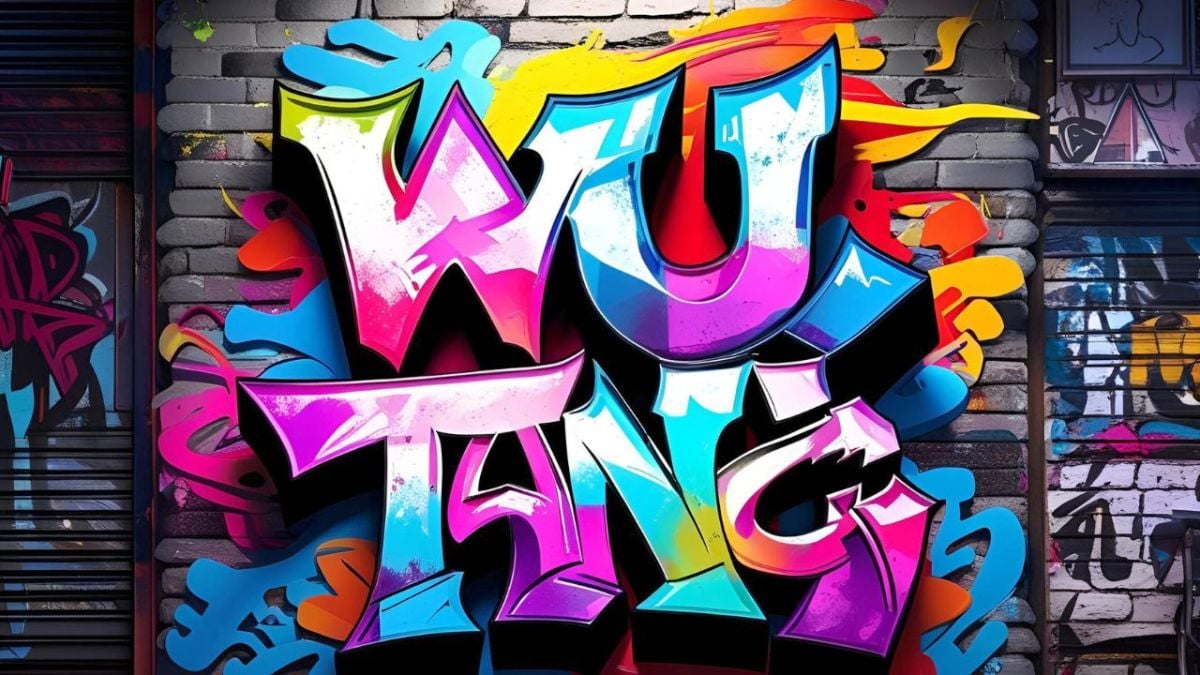
Wu Tang Font Generator – Create Legendary Hip-Hop Style Text!
⚔️ Wu Tang Font Generator ⚔️
🎤 Create legendary hip-hop style text with the power of the Wu Tang Clan! Perfect for rap projects, street art designs, and urban adventures! 🔥
Create legendary text with the iconic Wu Tang Clan style! Use our Wu Tang Font Generator to preview and design hip-hop inspired text for music projects, fan art, and creative designs. Download the Wu Tang font for free and bring that classic 90s rap aesthetic to your work.
The Wu Tang font captures the bold, powerful aesthetic of the legendary hip-hop group Wu Tang Clan. With its distinctive sharp edges and strong presence, this font instantly evokes the raw energy and iconic style that revolutionized rap music in the 1990s.
Our Wu Tang Font Generator lets you preview your text in this iconic style and download the font for your own creative projects, perfect for music-related designs, street art, merchandise concepts, and fan tributes.
Authentic Hip-Hop Typography
Generate text with the real Wu Tang font—ideal for music projects, fan art, and urban-inspired designs.
Instant Text Preview
Type your message and see it instantly styled in the iconic Wu Tang look with live preview and easy customization.
Custom Styling
Adjust font size, color, and effects to match your creative vision—perfect for fans, artists, and designers.
Where to Use the Wu Tang Font
• Music Projects: Create album covers, playlist art, or music video graphics.
• Fan Art: Design authentic-looking Wu Tang Clan tributes and memorabilia.
• Social Media: Make your hip-hop related posts stand out with iconic typography.
• Street Art: Add authentic urban style to digital or physical art projects.
• Merchandise Concepts: Design t-shirt ideas, posters, and collectibles.
Design Tips for Hip-Hop Fonts
• Use Bold Colors: Wu Tang fonts look best with black and yellow (the group’s signature colors) or high-contrast combinations.
• Keep It Bold: This font works best at larger sizes where its powerful details can make an impact.
• Urban Backgrounds: Pair with concrete textures, graffiti elements, or urban photography for authentic style.
What makes the Wu Tang font unique?
Its bold, sharp-edged style captures the powerful energy of the Wu Tang Clan—perfect for fans, music creators, and urban design enthusiasts.
How do I make my text look more like the Wu Tang logo?
Use yellow text on a black background, add a slight arc to your text, and consider adding the iconic Wu Tang “W” symbol for that authentic Wu Tang Clan look.